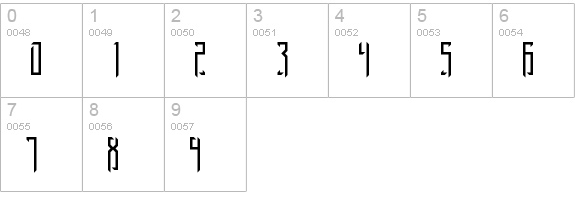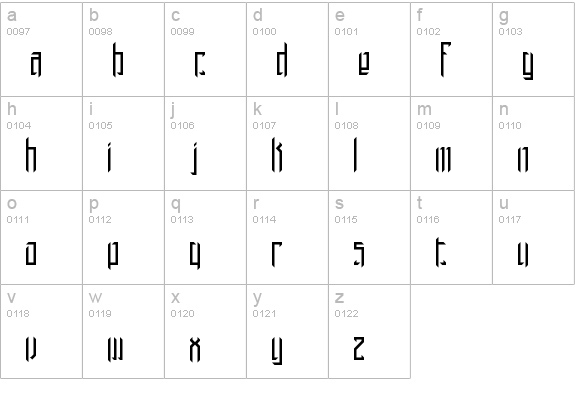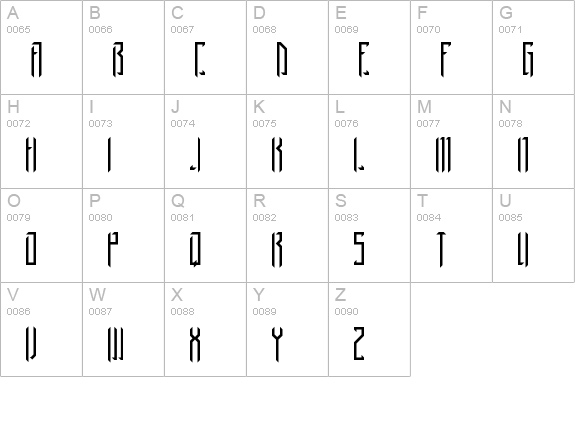
Brigadoom BRK Font Details
Brigadoom BRK font is a unique and eye-catching display typeface that exudes a sense of mystery and adventure. Its bold, intricate letterforms are reminiscent of ancient runes, making it perfect for projects that require a touch of the fantastical or otherworldly. The font's sharp angles and elaborate details give it a distinct and powerful presence that demands attention. What sets Brigadoom BRK font apart is not only its striking design but also the fact that it is completely free to download. You can easily access this captivating typeface at FontsMarket.com, where it is available for anyone looking to add a touch of magic to their design projects. Embrace the enchanting allure of Brigadoom BRK font and unleash your creativity with this stunning typeface.